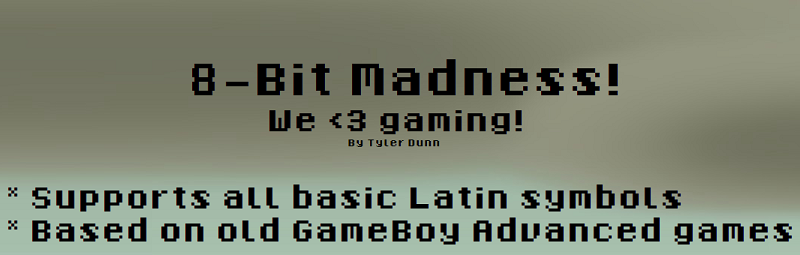
This is a simple font made from scratch depicting designs from various old retro video games. This font should only be hosted on www.dafont.com, if you find it anywhere else, send a message to me. |